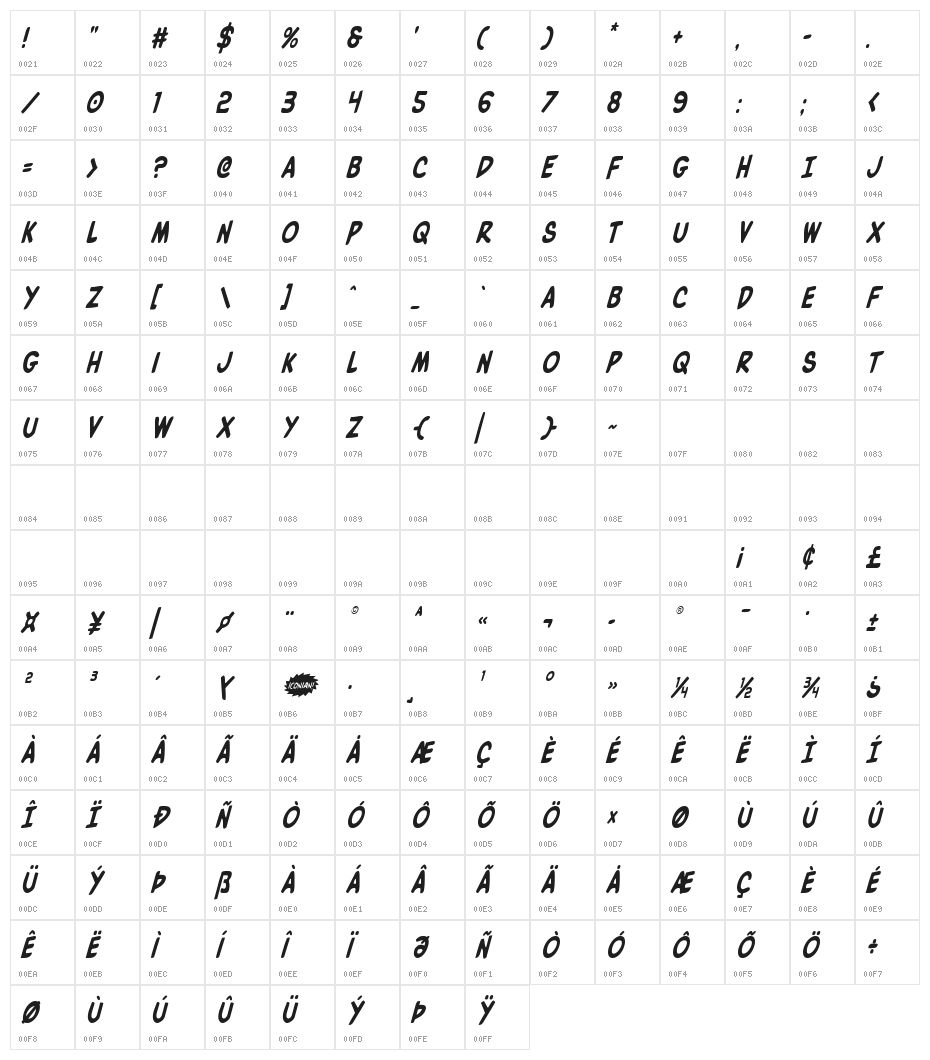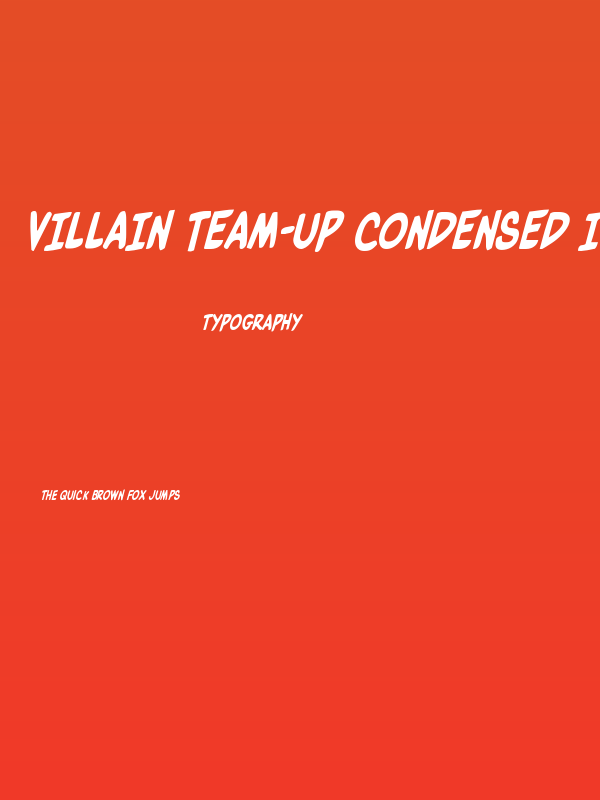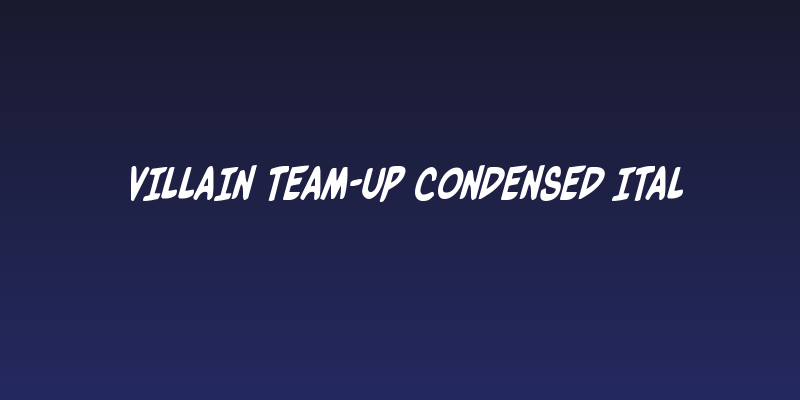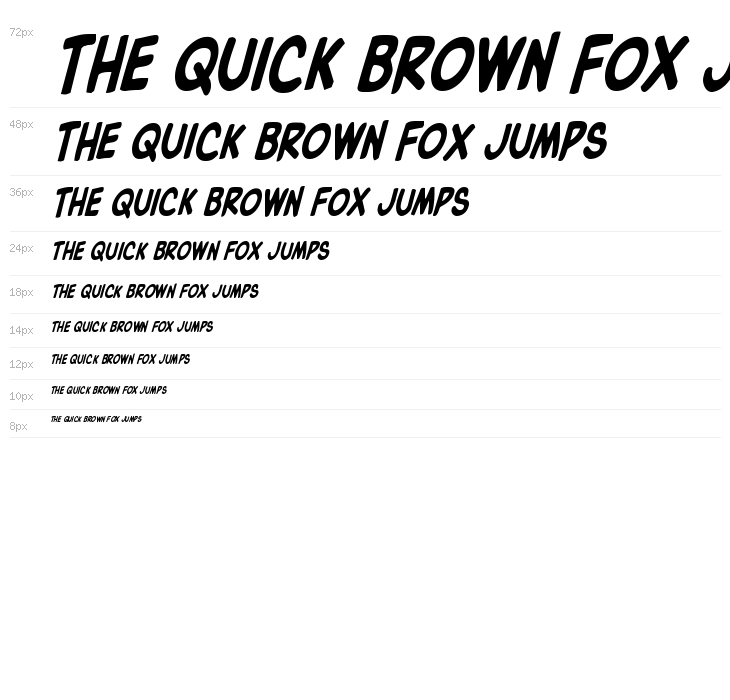
Villain Team-Up Condensed Ital Font
Villain Team-Up Condensed Ital Description
This font exhibits a bold and dynamic style with a condensed and italicized form. The characters are slightly slanted, giving a sense of movement and energy. The strokes are thick and consistent, providing a strong visual impact. The uppercase and lowercase letters maintain a uniform appearance, with rounded edges and a smooth flow. The numerals are clear and bold, matching the overall aesthetic. Special characters are well-defined and integrated seamlessly into the design, enhancing its versatility.
| Overall Style | Dynamic and Energetic |
| Proposed Projects | Ideal for comic book titles, action-themed posters, branding for dynamic products, and sports-related graphics. |